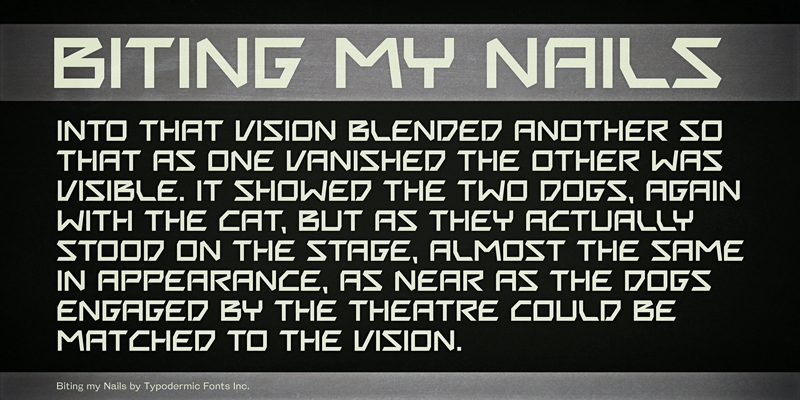
Biting My Nails is an angular techno font suitable for robot identification numbers. These fonts include a license that allows free commercial use: sometimes referred to as a desktop license. This allows you to install the fonts on a computer and use them to create posters, web graphics, game graphics, t-shirts, videos, signs, logos and more. Read the license agreement for details. If you'd like to embed these fonts in an app, ebook, on the web or anything that's not covered by the desktop license agreement, visit the link below. You'll find distributors who offer different types of licenses or you can contact me for help. http://typodermicfonts.com/biting-my-nails/ |